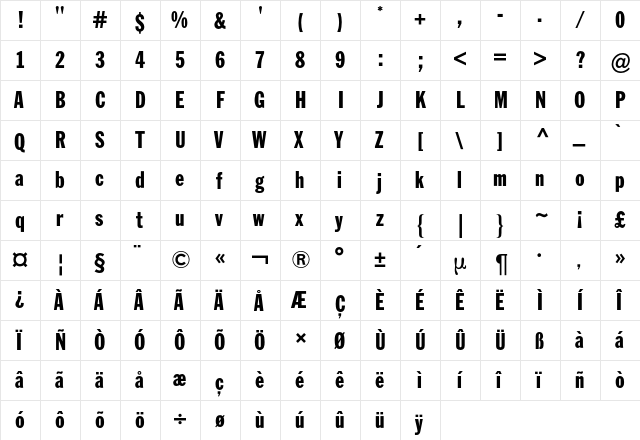
FranklinATFExtraCondensedBQ Regular
Design Context for FranklinATFExtraCondensedBQ Typeface
FranklinATFExtraCondensedBQ is a composed and adaptable typeface that performs quietly and consistently across a wide range of design contexts. The condensed width makes it efficient for tight spaces without sacrificing legibility.